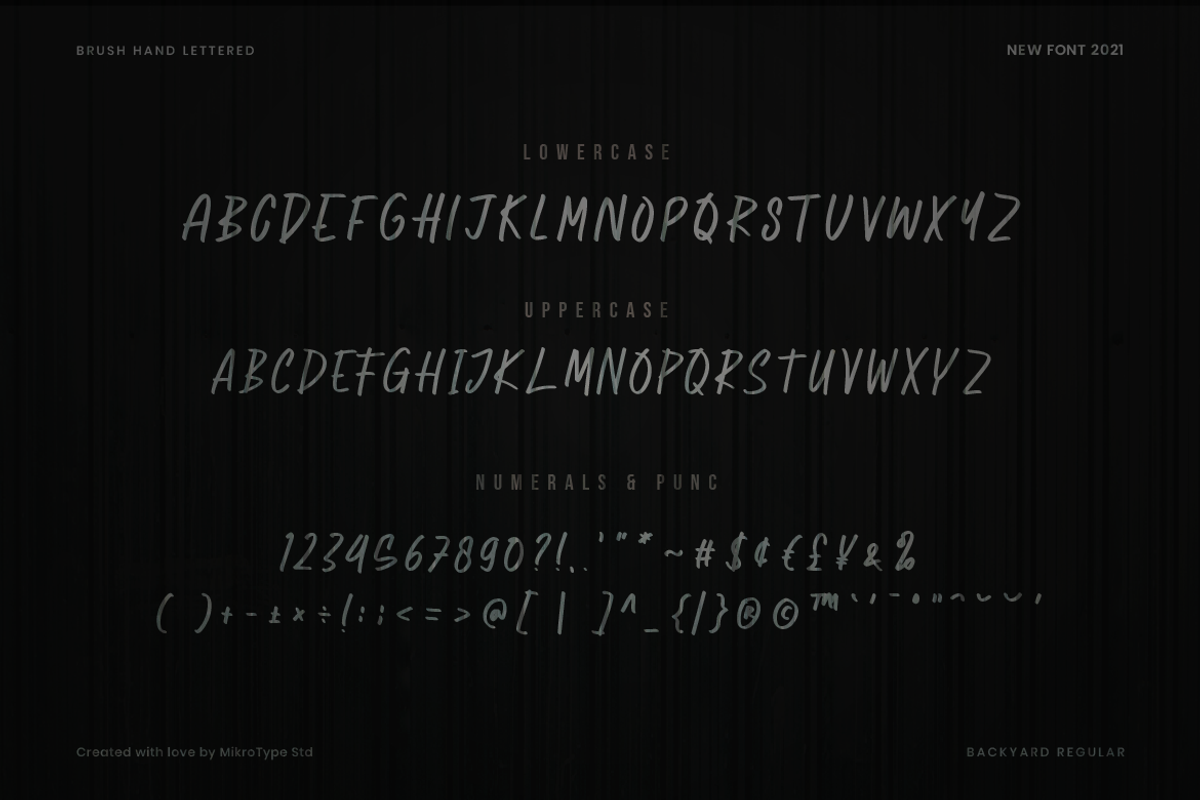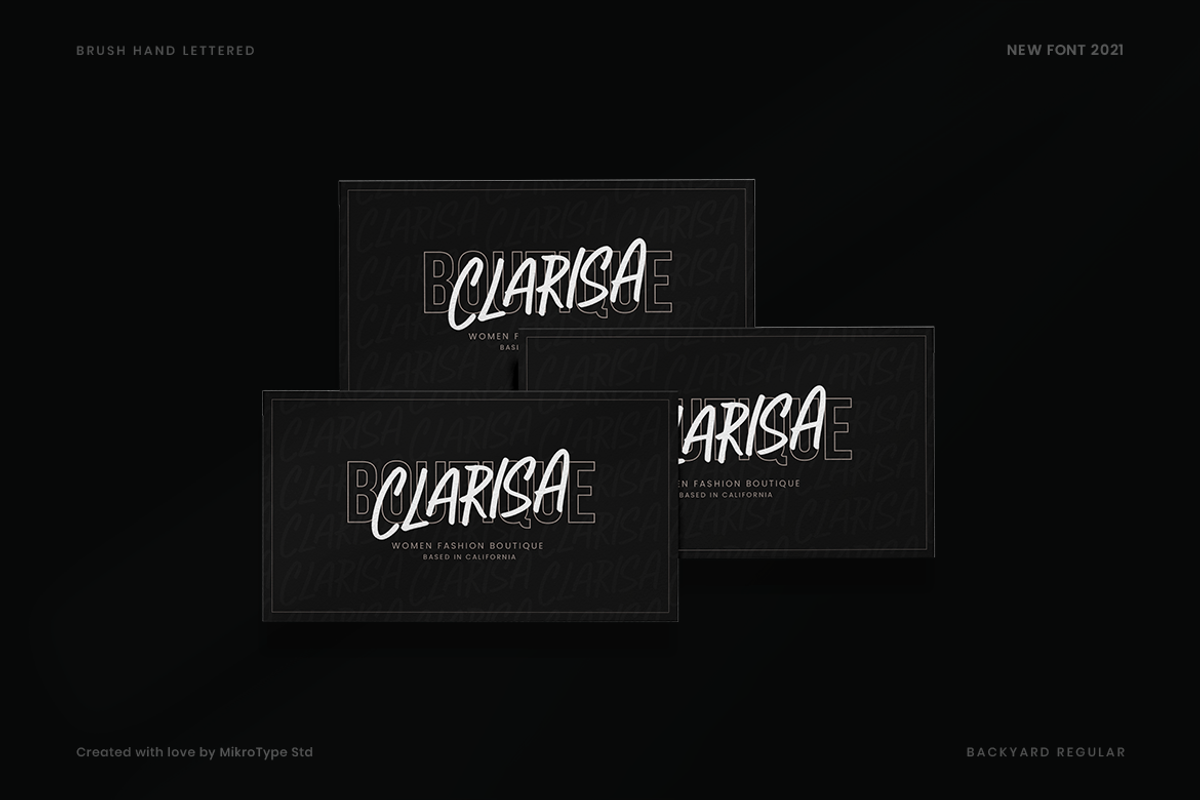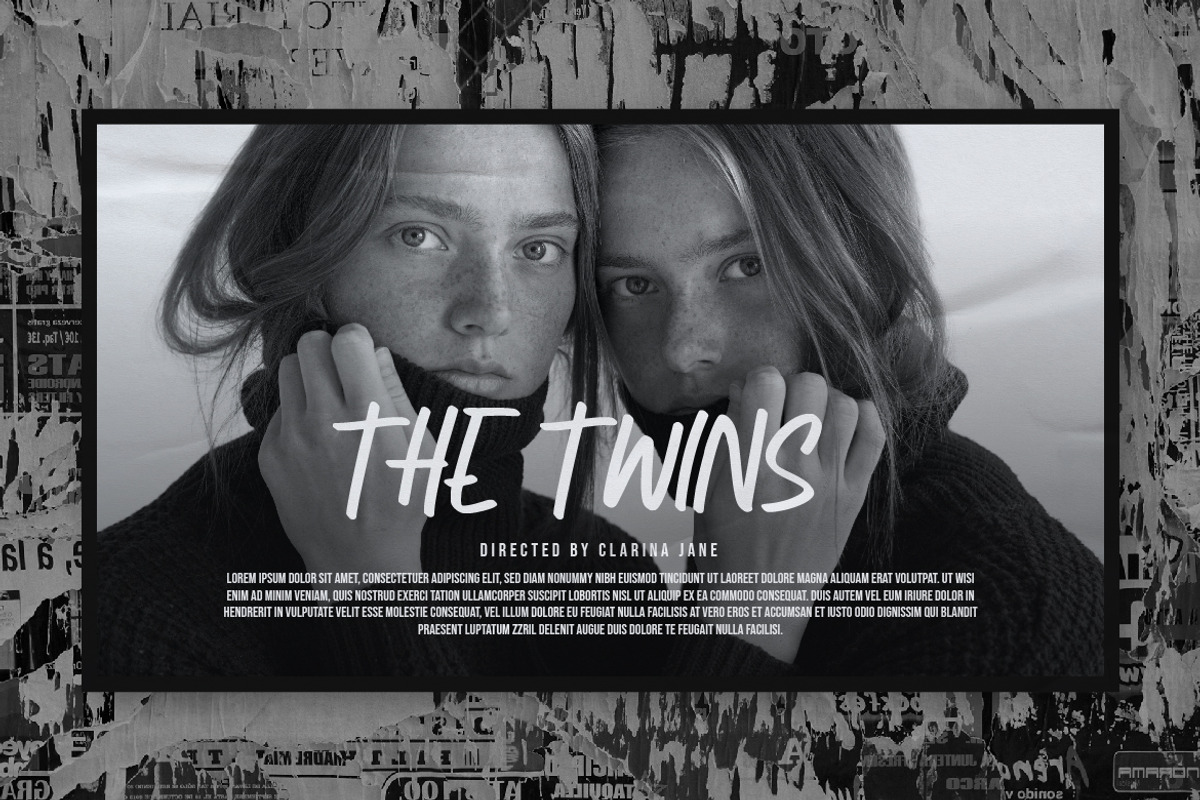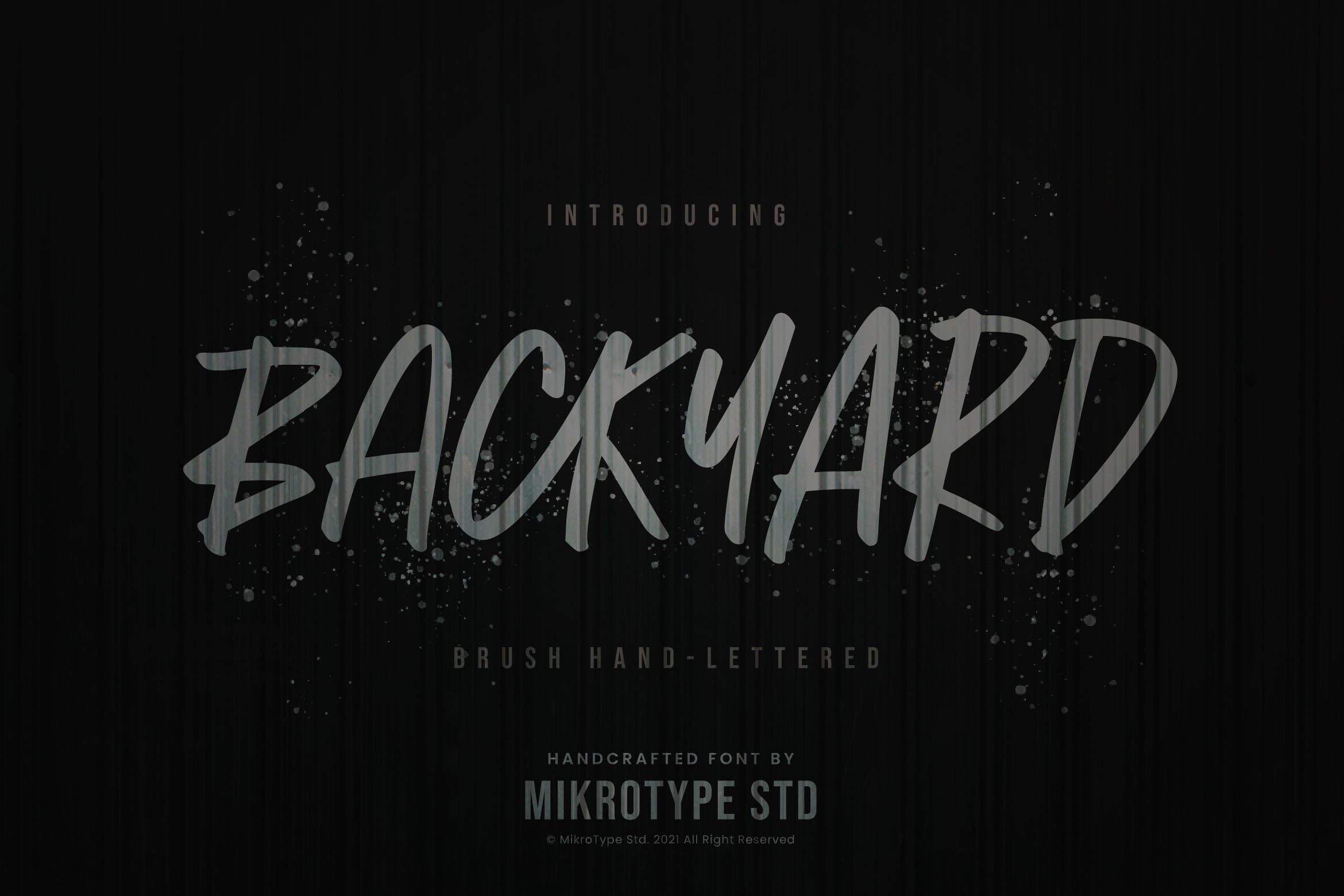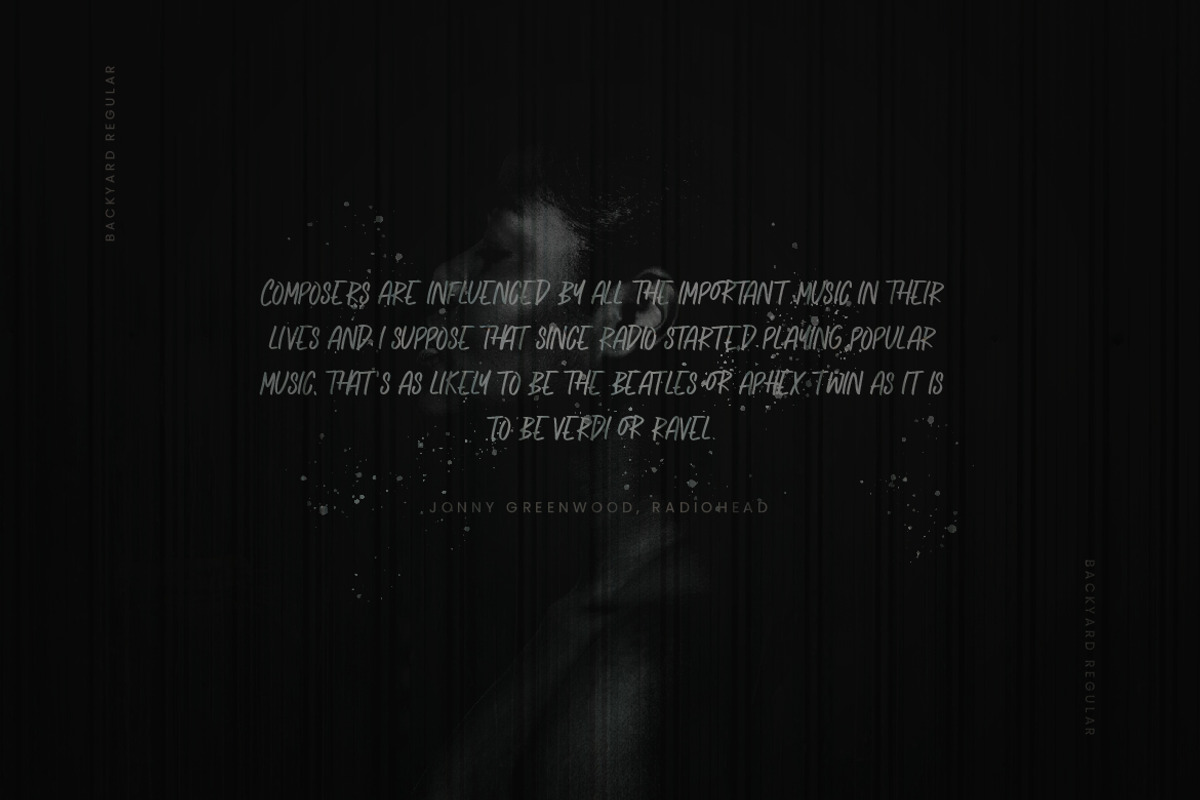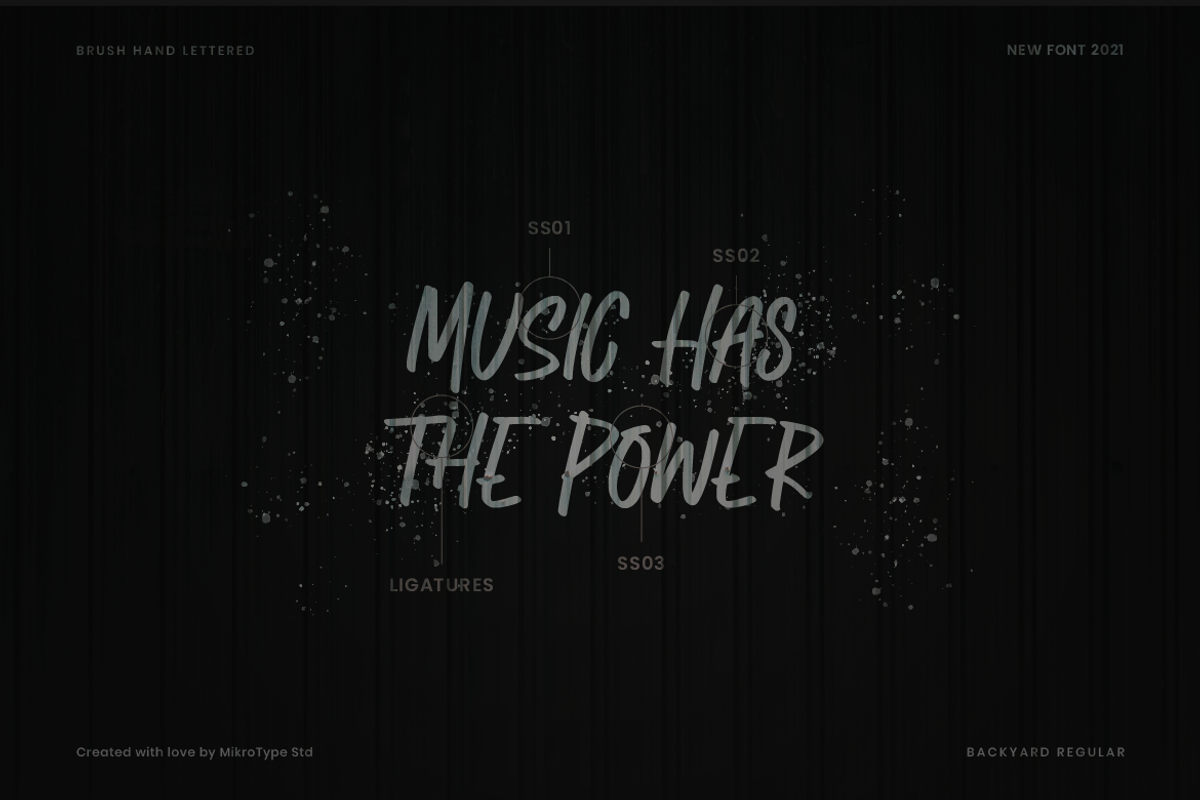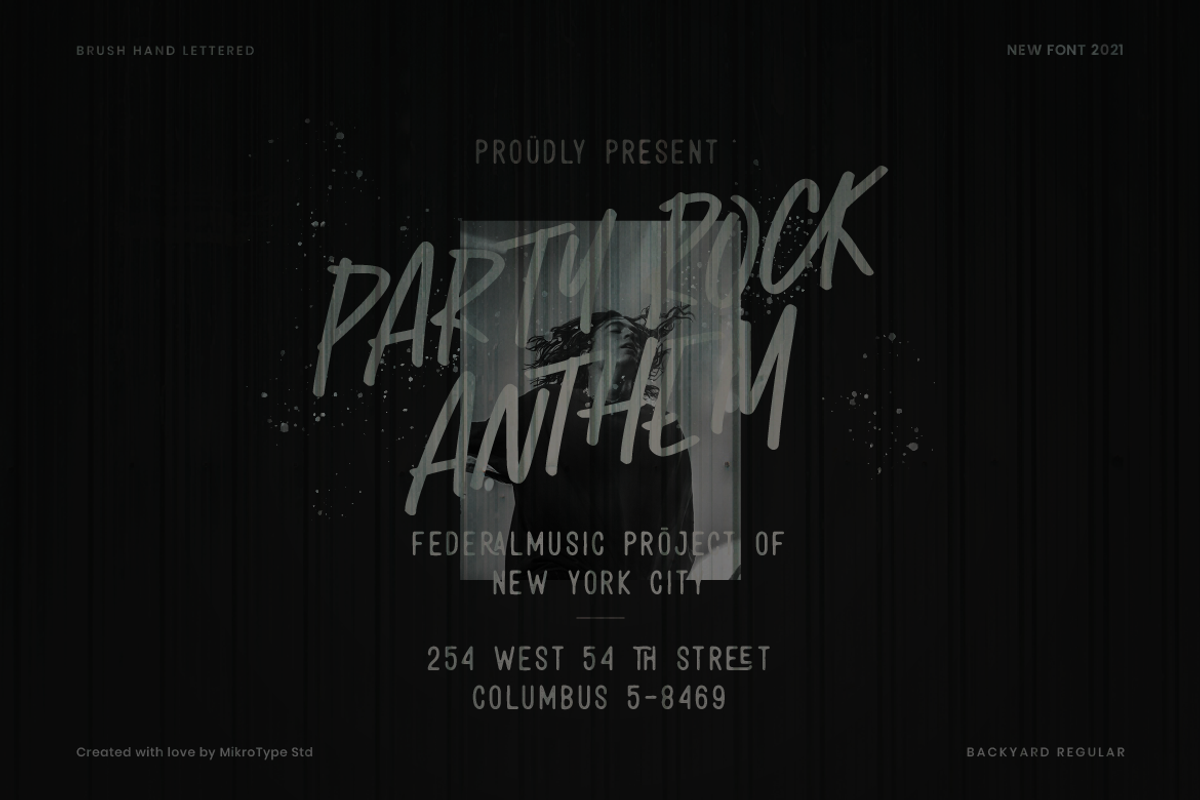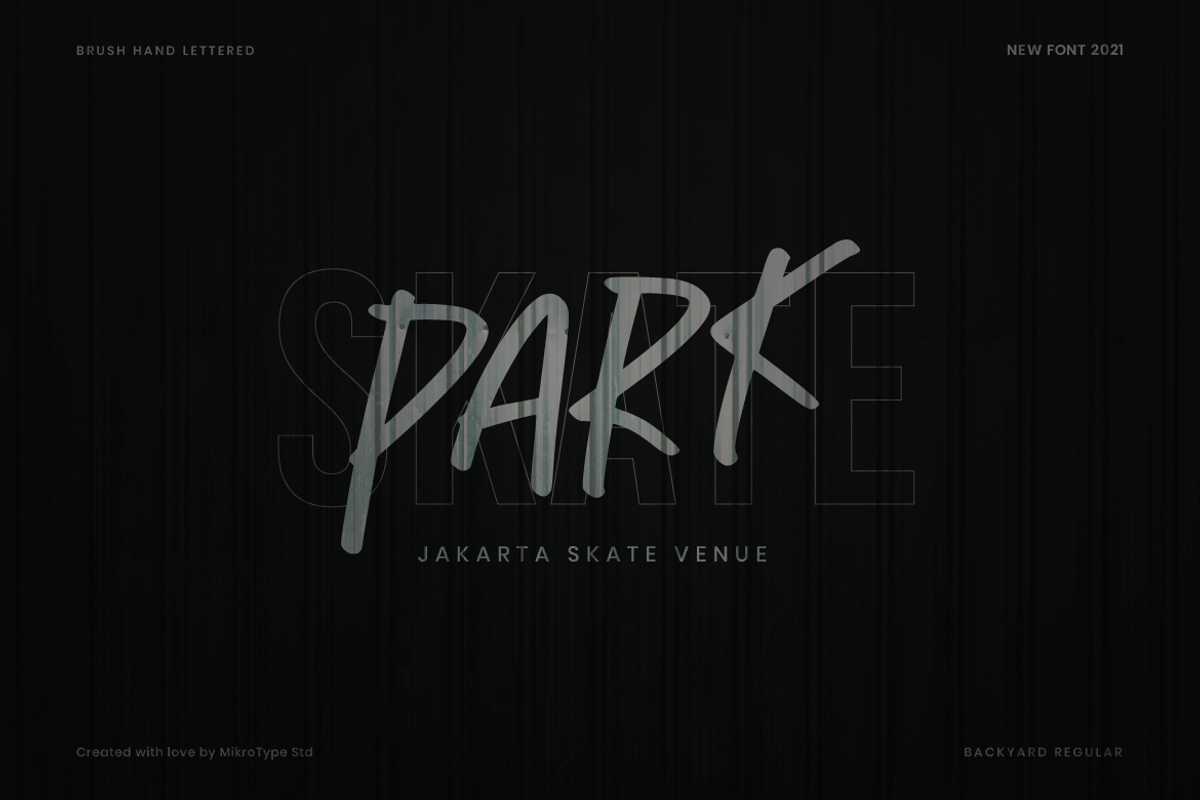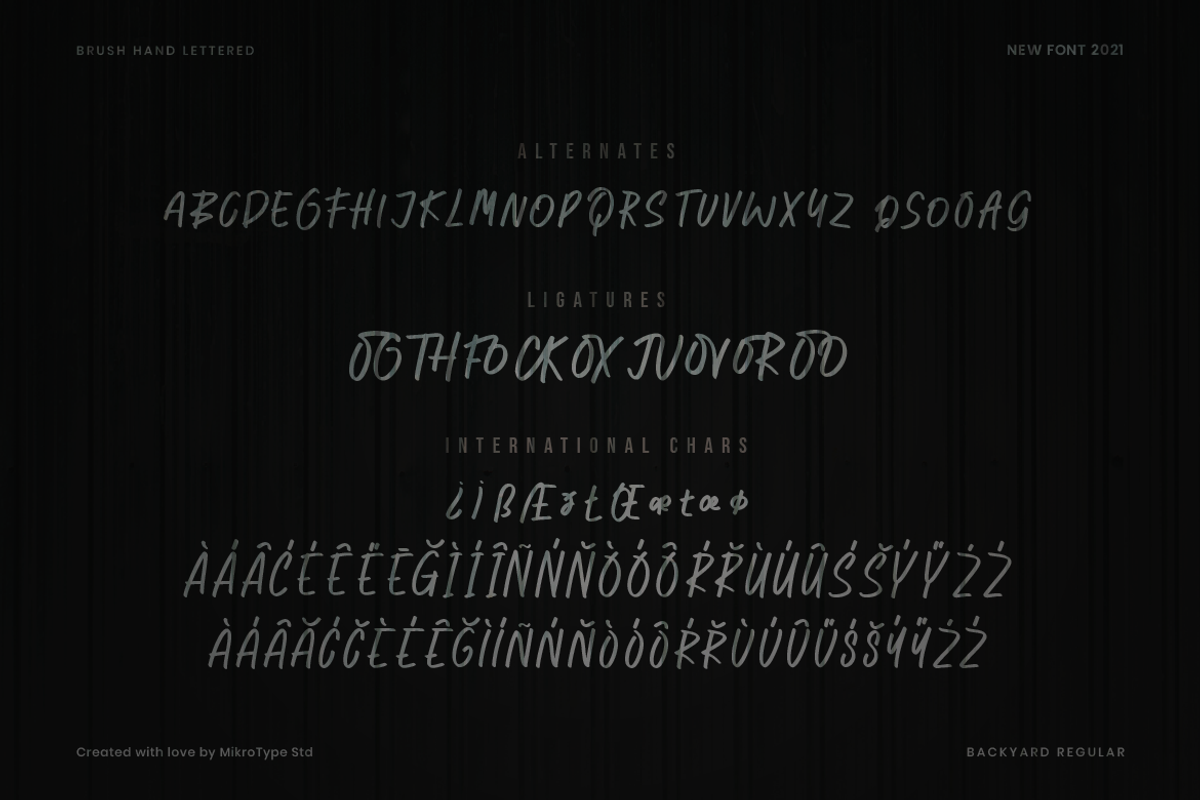
Backyard Natural Business Font
Introducing Backyard - A brush hand-lettered specially crafted by the hands of experts. Great for any kind of display, making your products look more trendy and vibrant. The font is perfect for for movie title, logo, blogging, brand identity, book title, social media, branding, wedding invites, cards or simply use it in your next design project and suitable to use for many occasion.
- Multilingual Characters support for;Afrikaans, Albanian, Czech, Danish, Dutch, English, Estonian, Finnish, French, Hungarian, Italian, Latvian, Lithuanian, Norwegian, Polish, Portugese, Slovak, Slovenian, Spanisch, Swedish, Turkish.